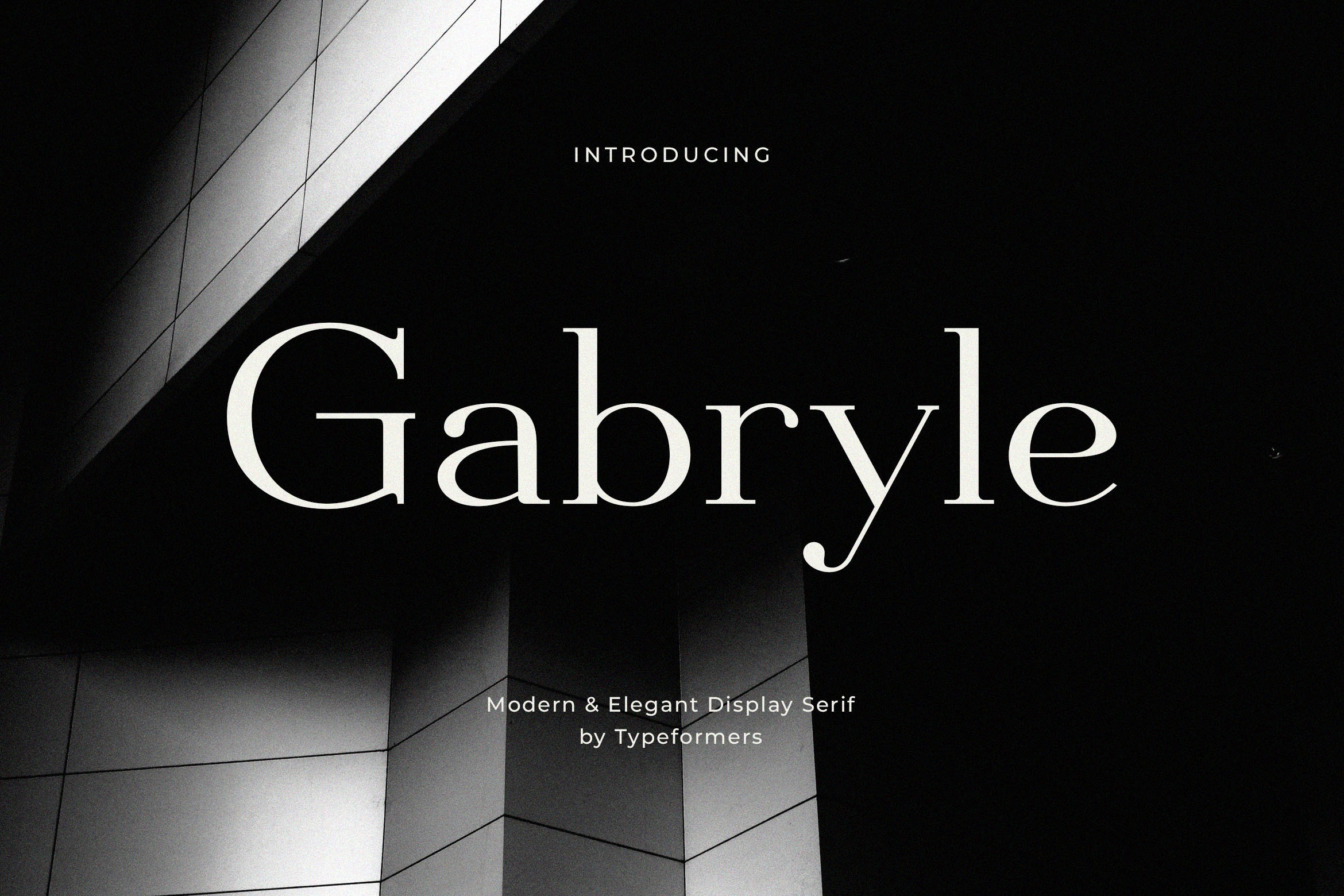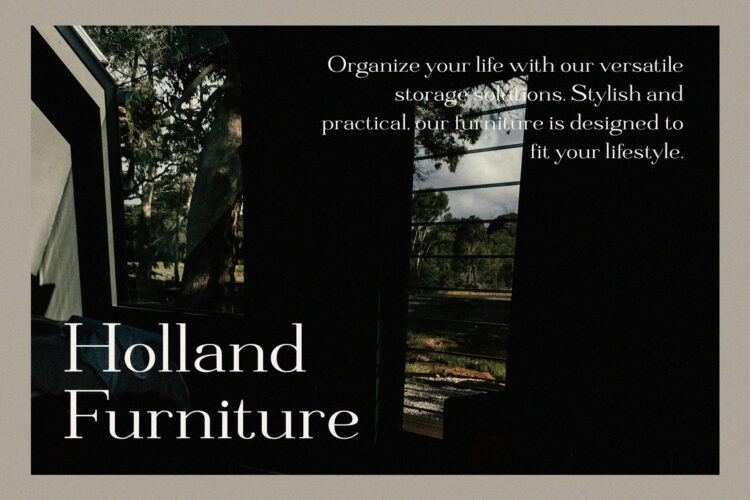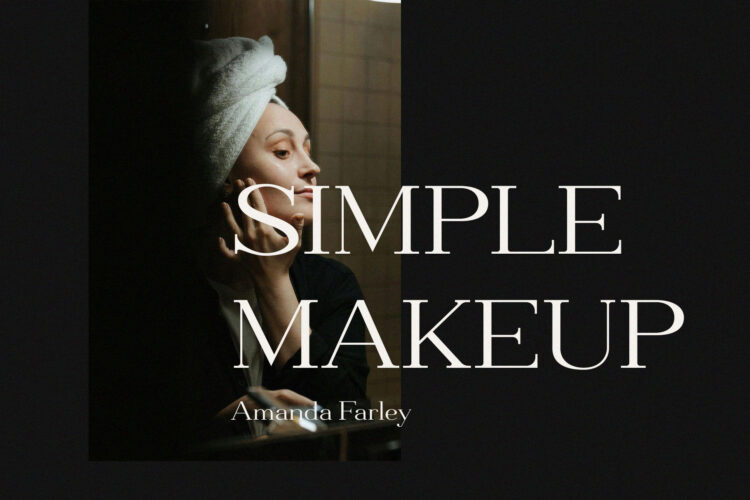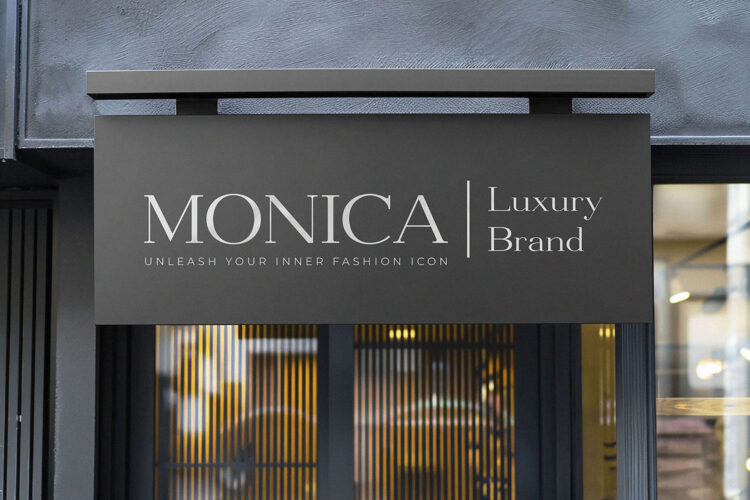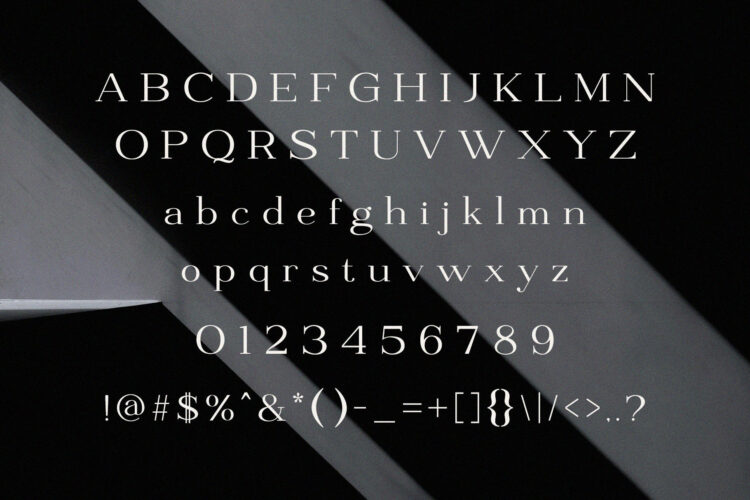
Introducing Gabryle – Modern Elegant Serif.
Gabryle is a modern and simple font, best used as a display for headings, logos, branding, magazines, product packaging and invitations.